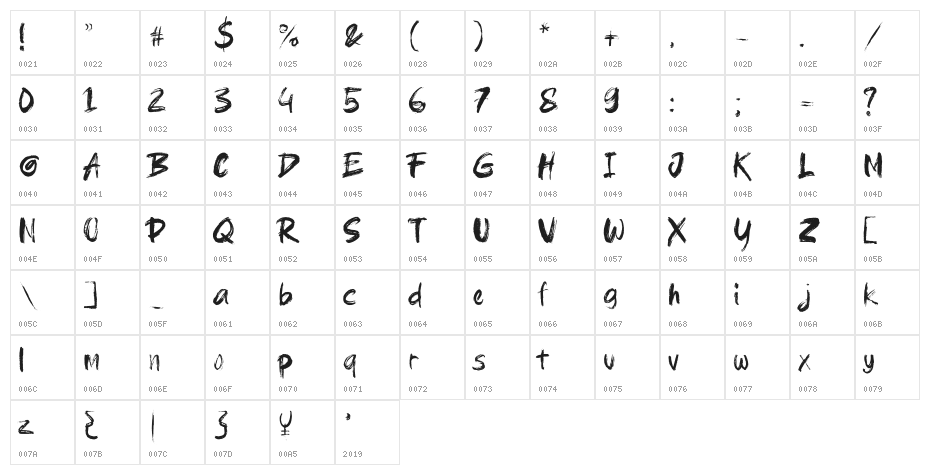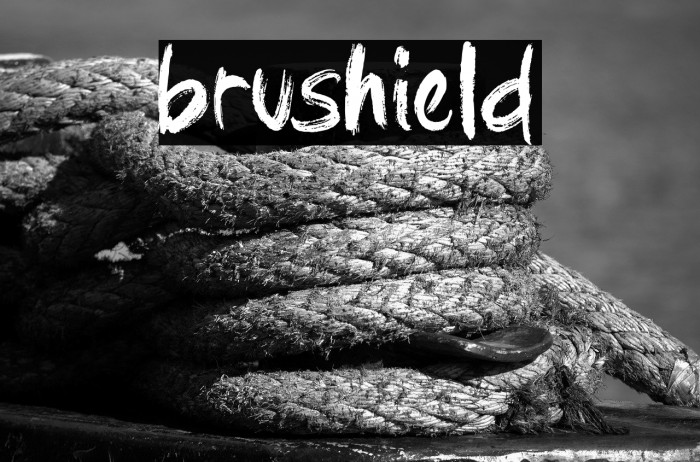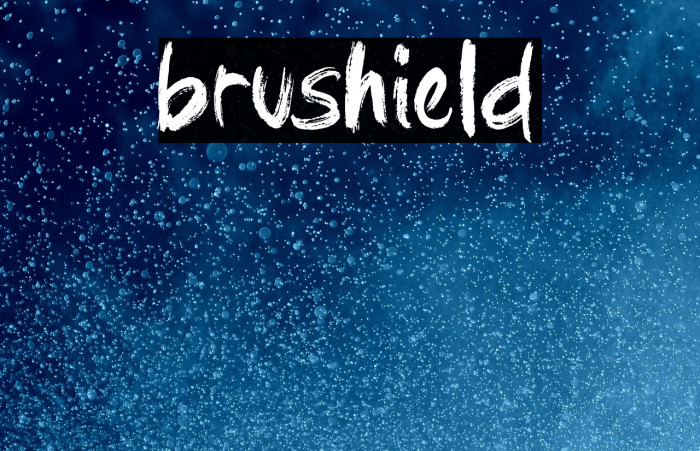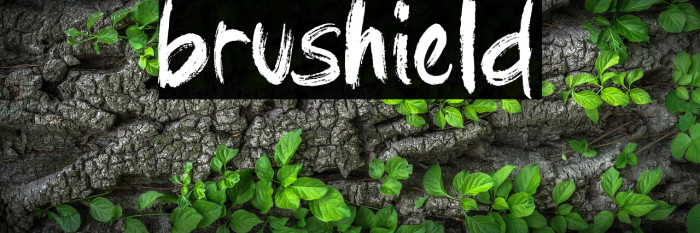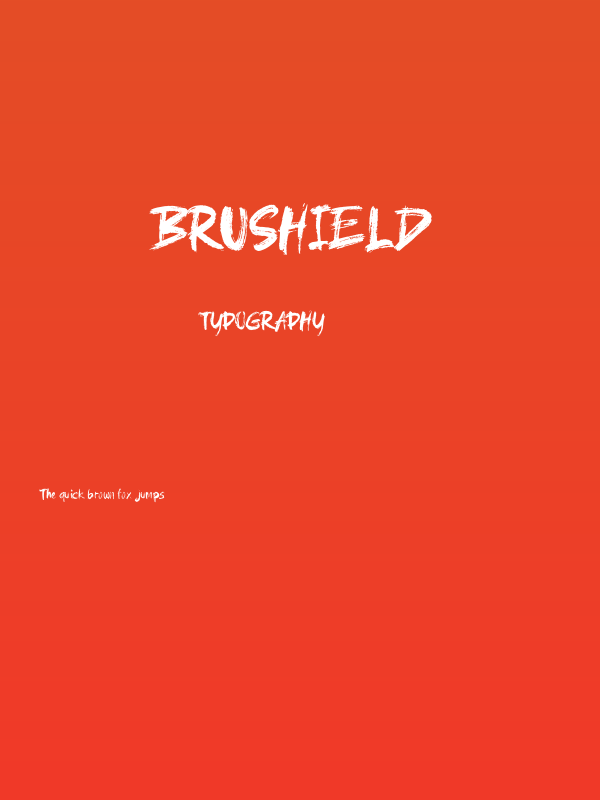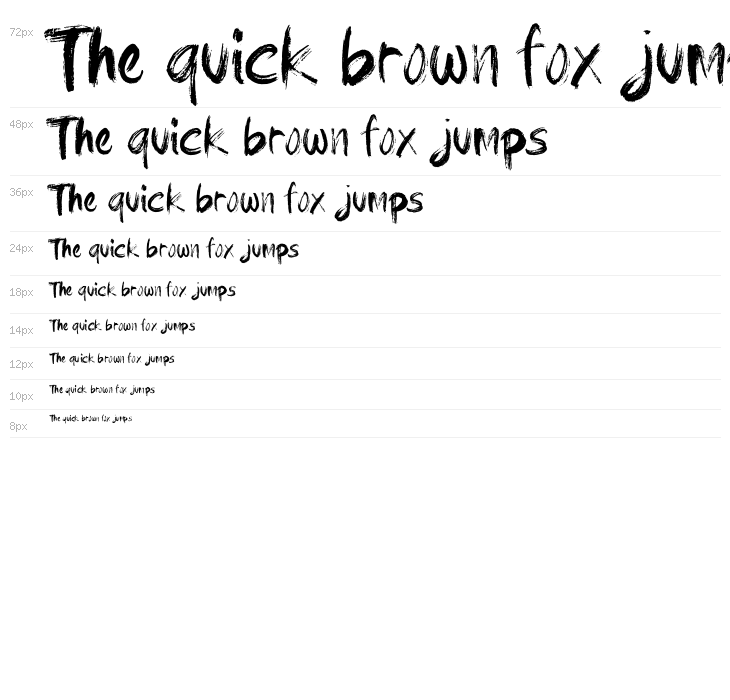
brushield Font
brushield Description
This font features a bold, expressive brush style that mimics the texture and flow of hand-painted strokes. Each character is dynamic, with varying thicknesses that give it a lively and artistic feel. The uppercase and lowercase letters maintain a consistent style, while the numbers and special characters complement the overall aesthetic. The rough edges and irregular forms add a sense of movement and energy, making it ideal for creative and impactful designs.